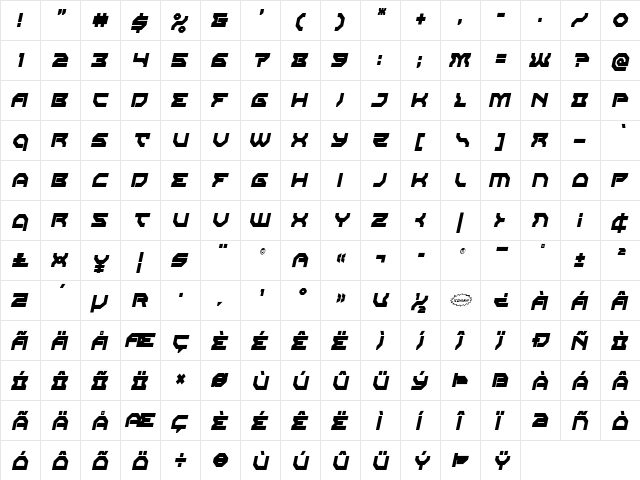
Xeno-Demon Condensed Italic Condensed Italic
Design Context for Xeno-Demon Condensed Italic Typeface
Xeno-Demon Condensed Italic is a composed and adaptable typeface that performs quietly and consistently across a wide range of design contexts. The slanted form adds forward momentum and visual energy. The condensed width makes it efficient for tight spaces without sacrificing legibility.
Pro Tip: Use Xeno-Demon Condensed Italic for emphasis, pull quotes, and subheadings where its slanted energy can add rhythm to the layout.